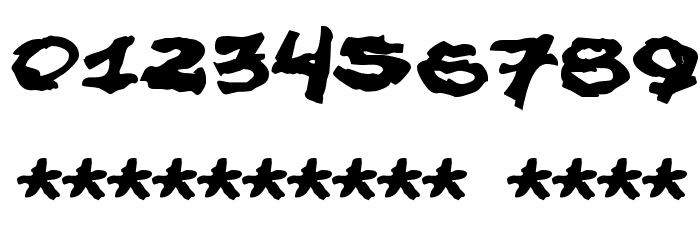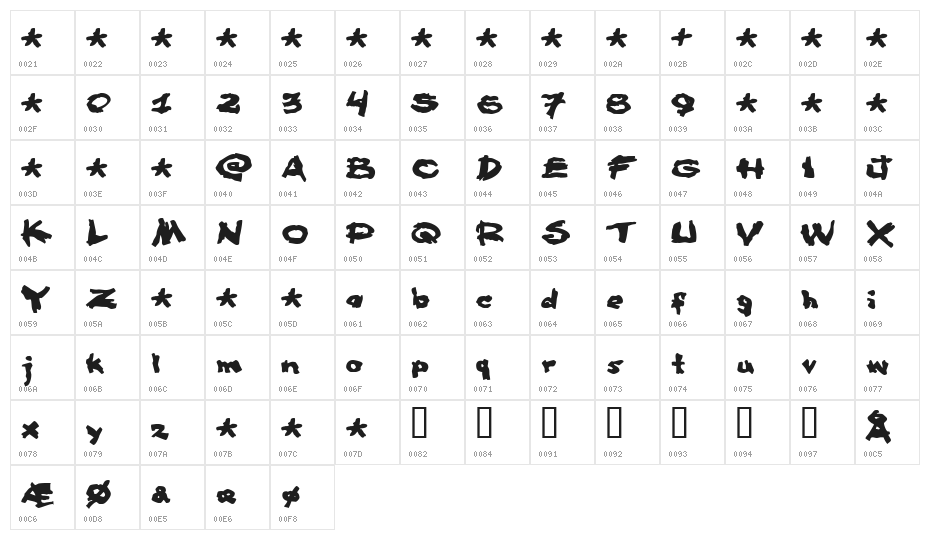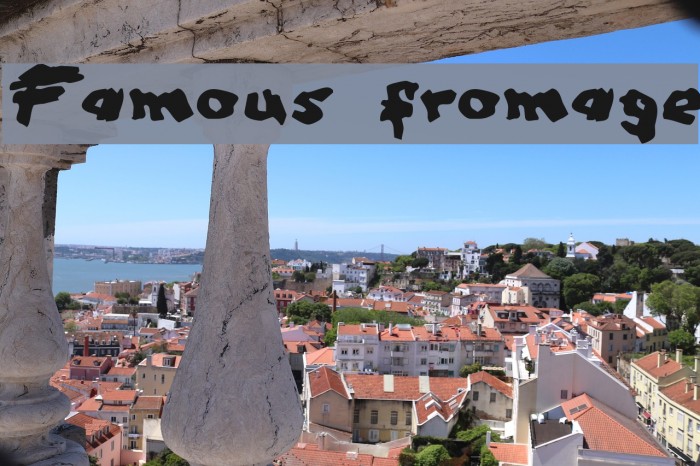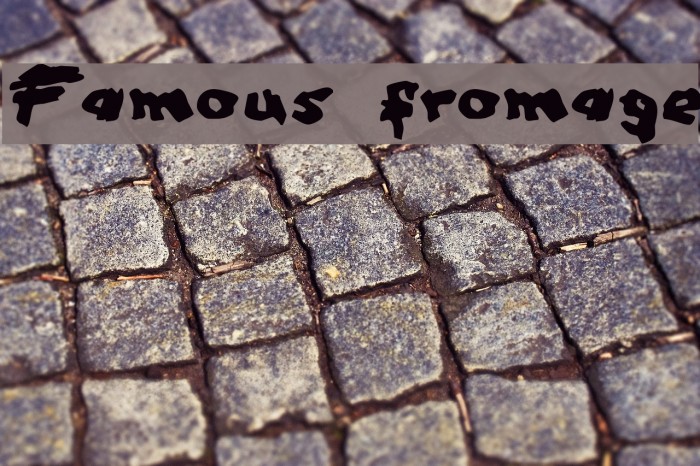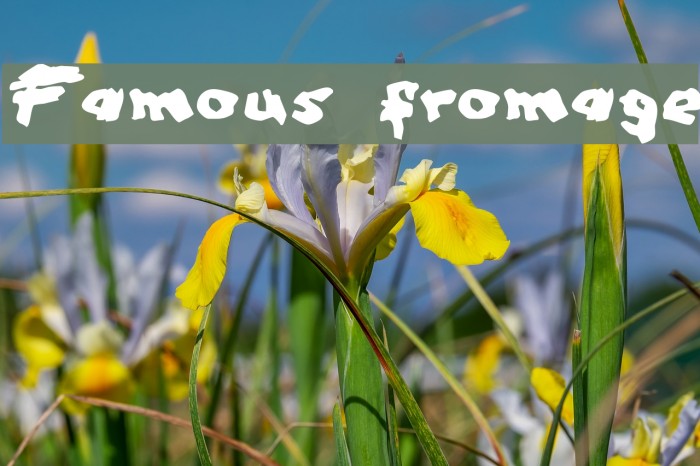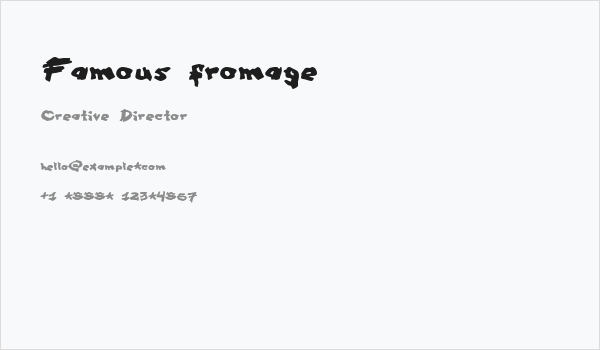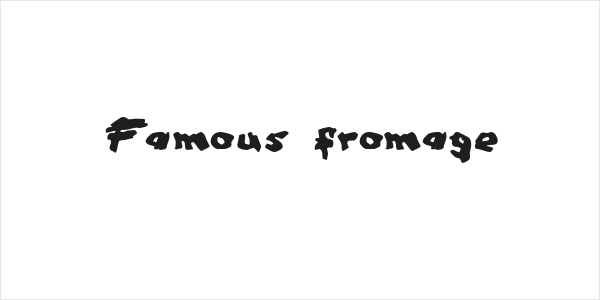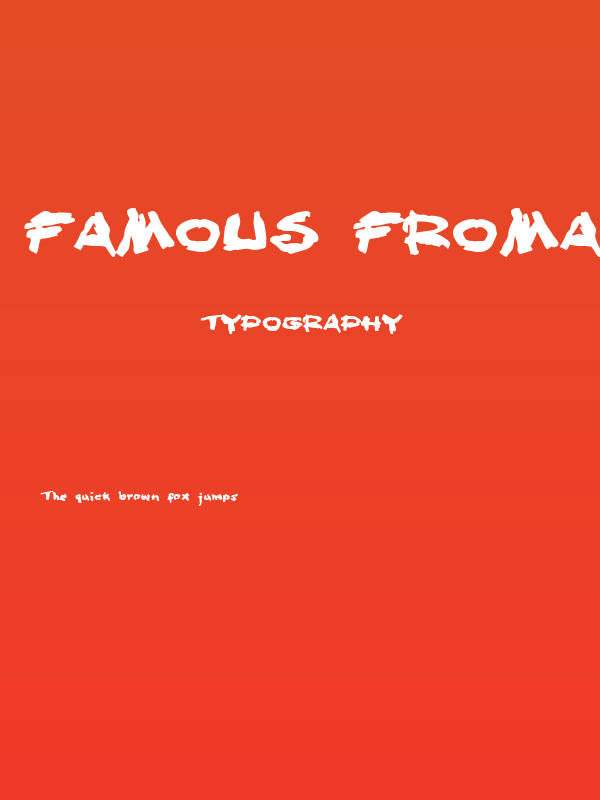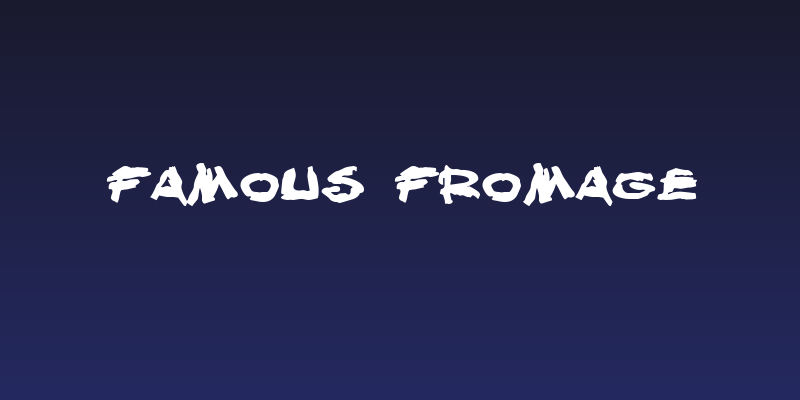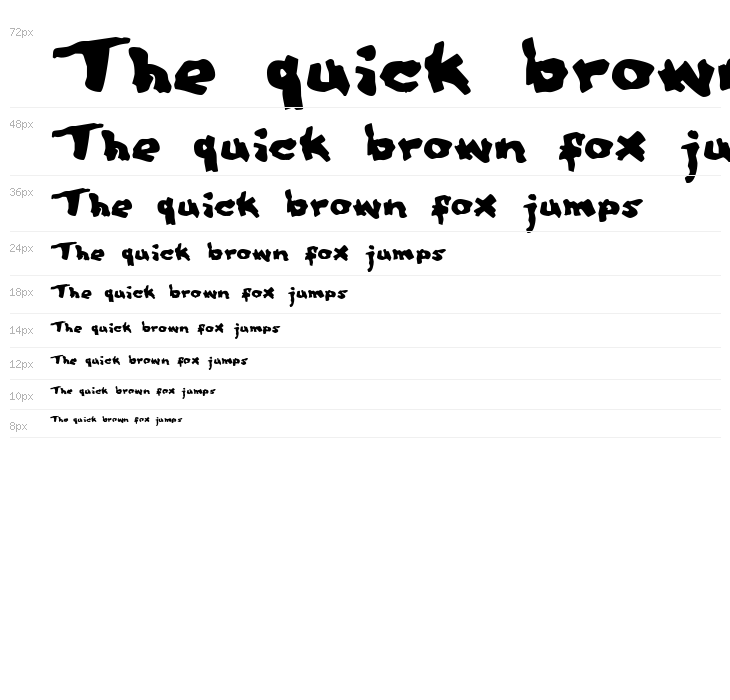
Famous fromage Font
This font exhibits a bold and expressive style, characterized by its jagged and irregular edges, reminiscent of hand-painted or graffiti lettering. The uppercase and lowercase letters maintain a consistent, playful energy, with exaggerated curves and angles that give it a dynamic appearance. The numbers and special characters follow the same aesthetic, ensuring a cohesive look across all glyphs. This font's unique style makes it stand out, ideal for projects that require a touch of creativity and boldness.
| Proposed Projects | Ideal for posters, album covers, street art designs, and creative branding projects. |